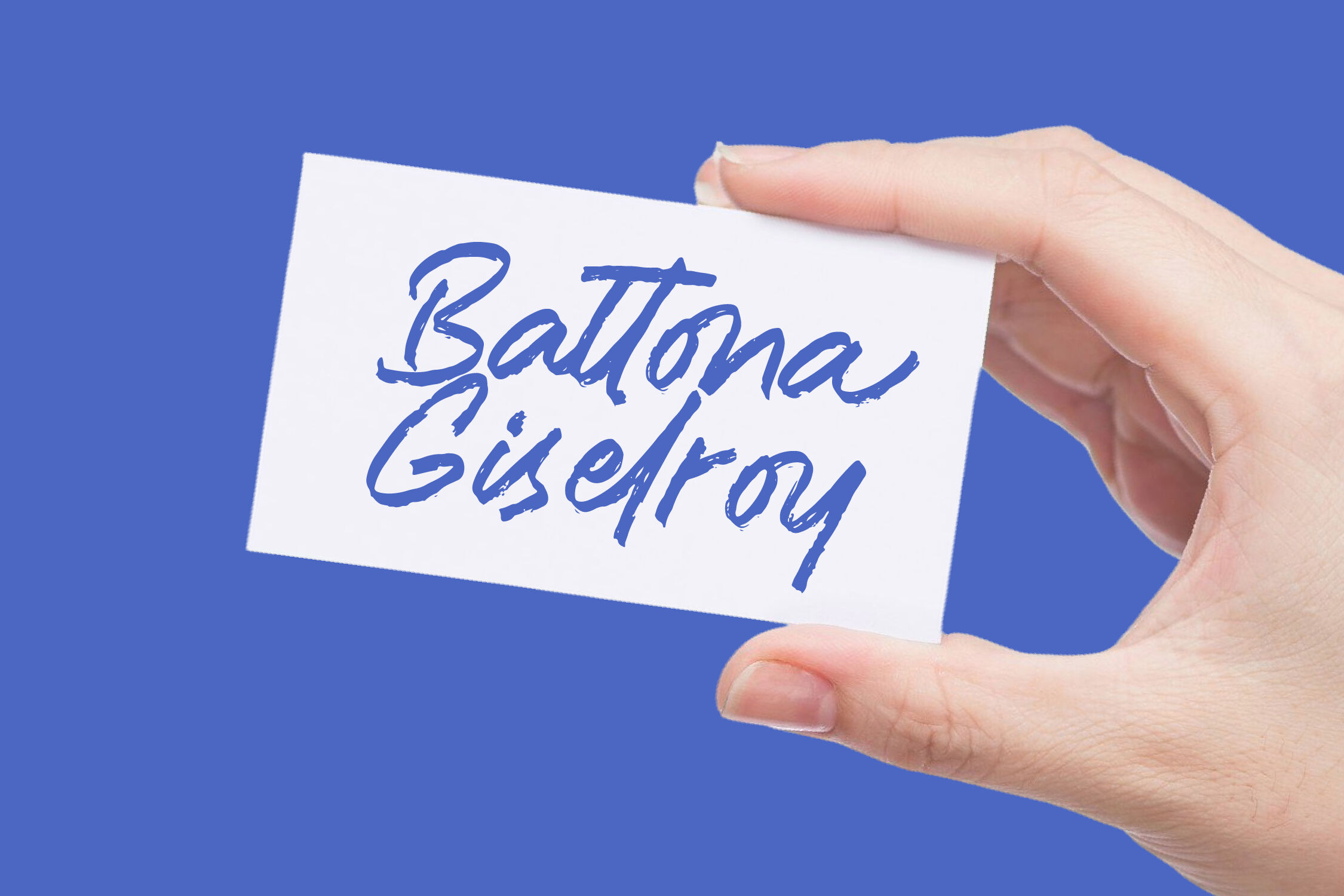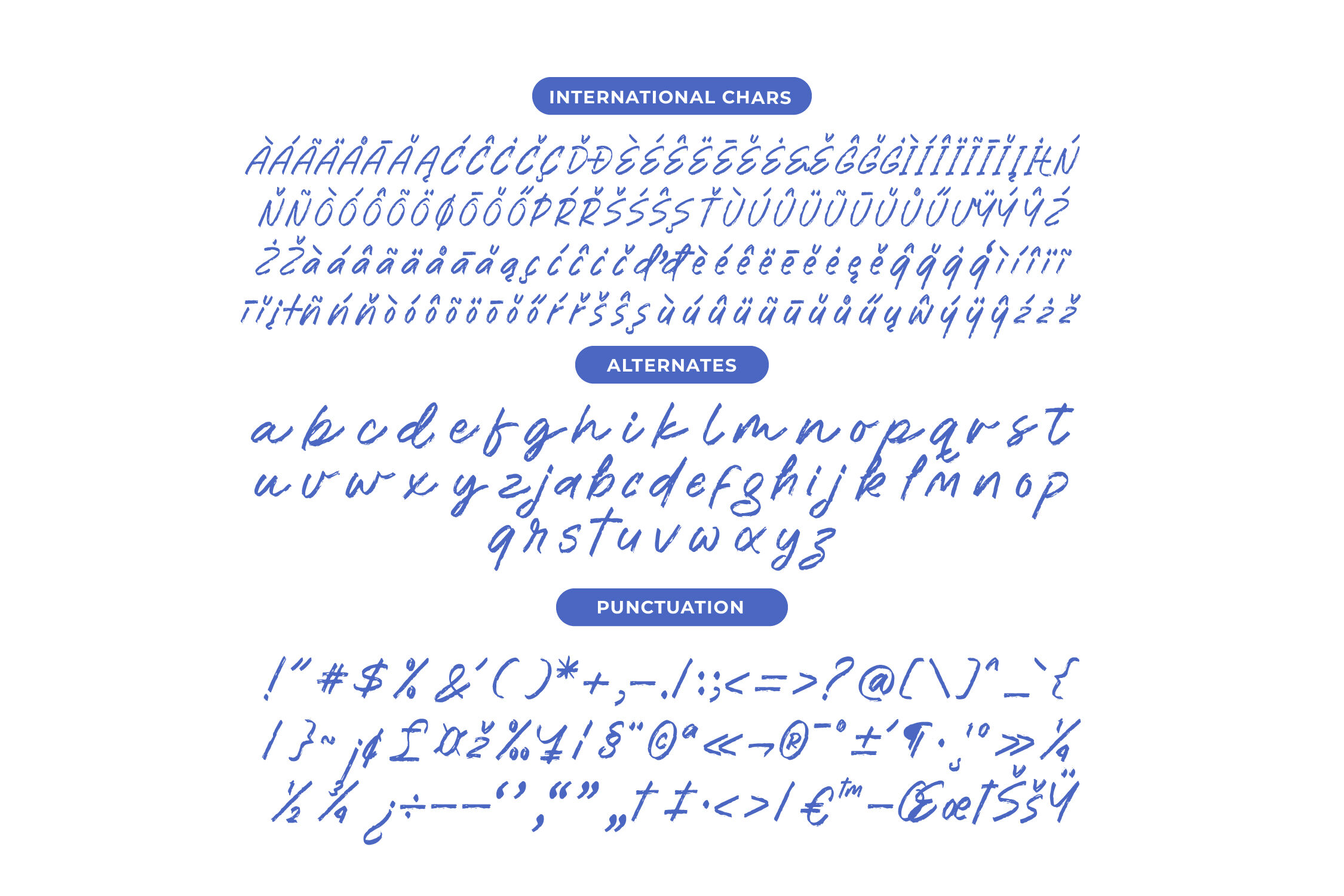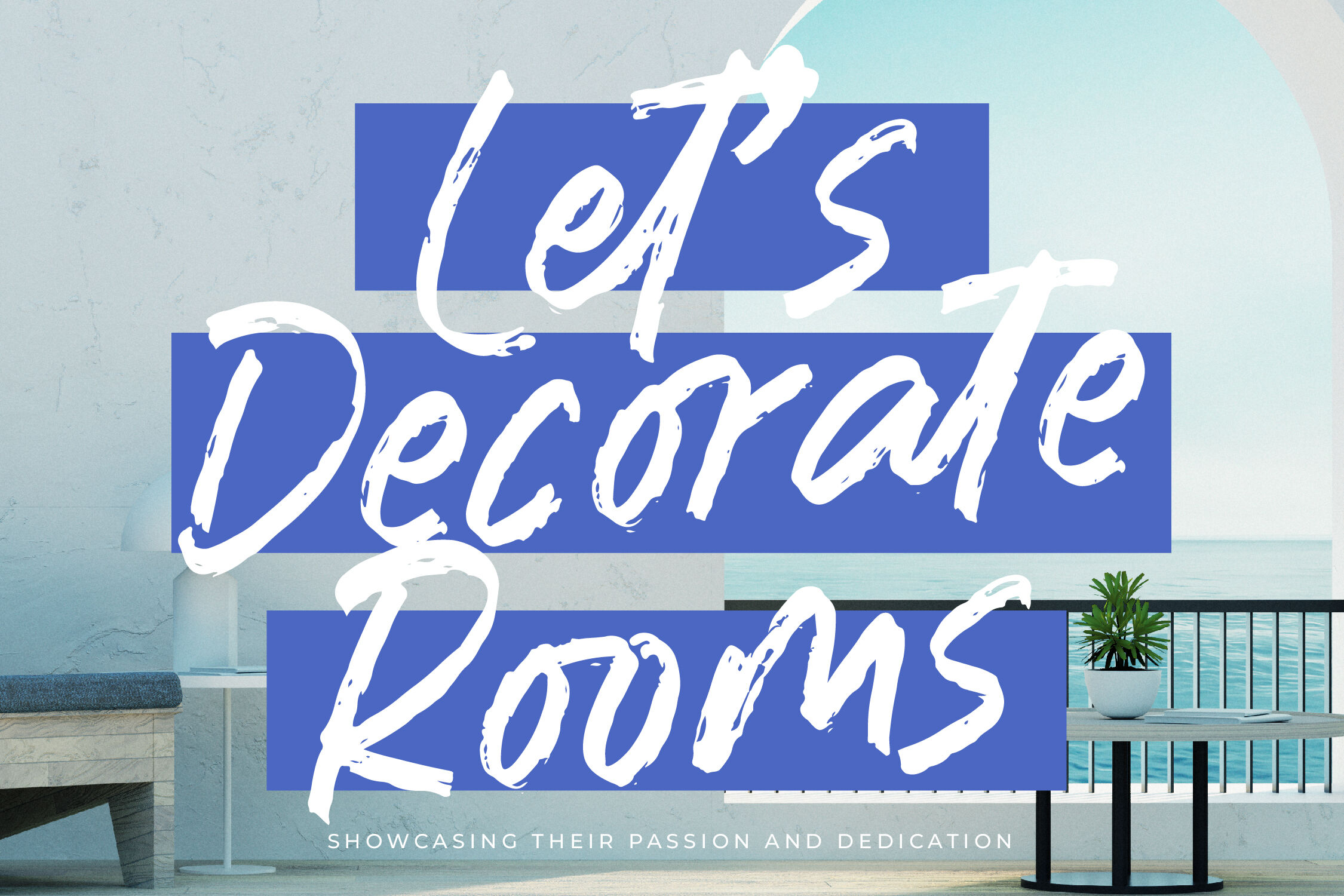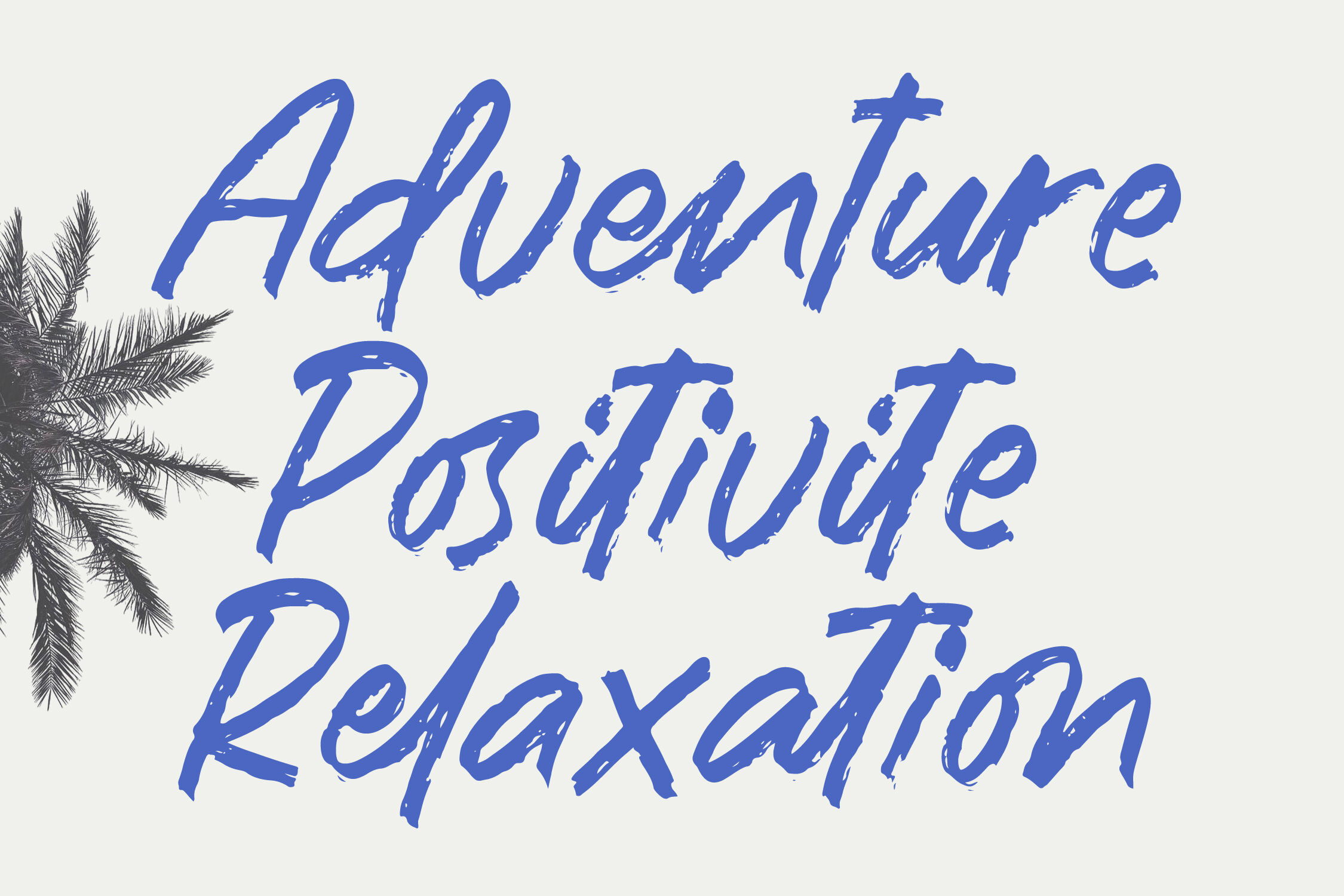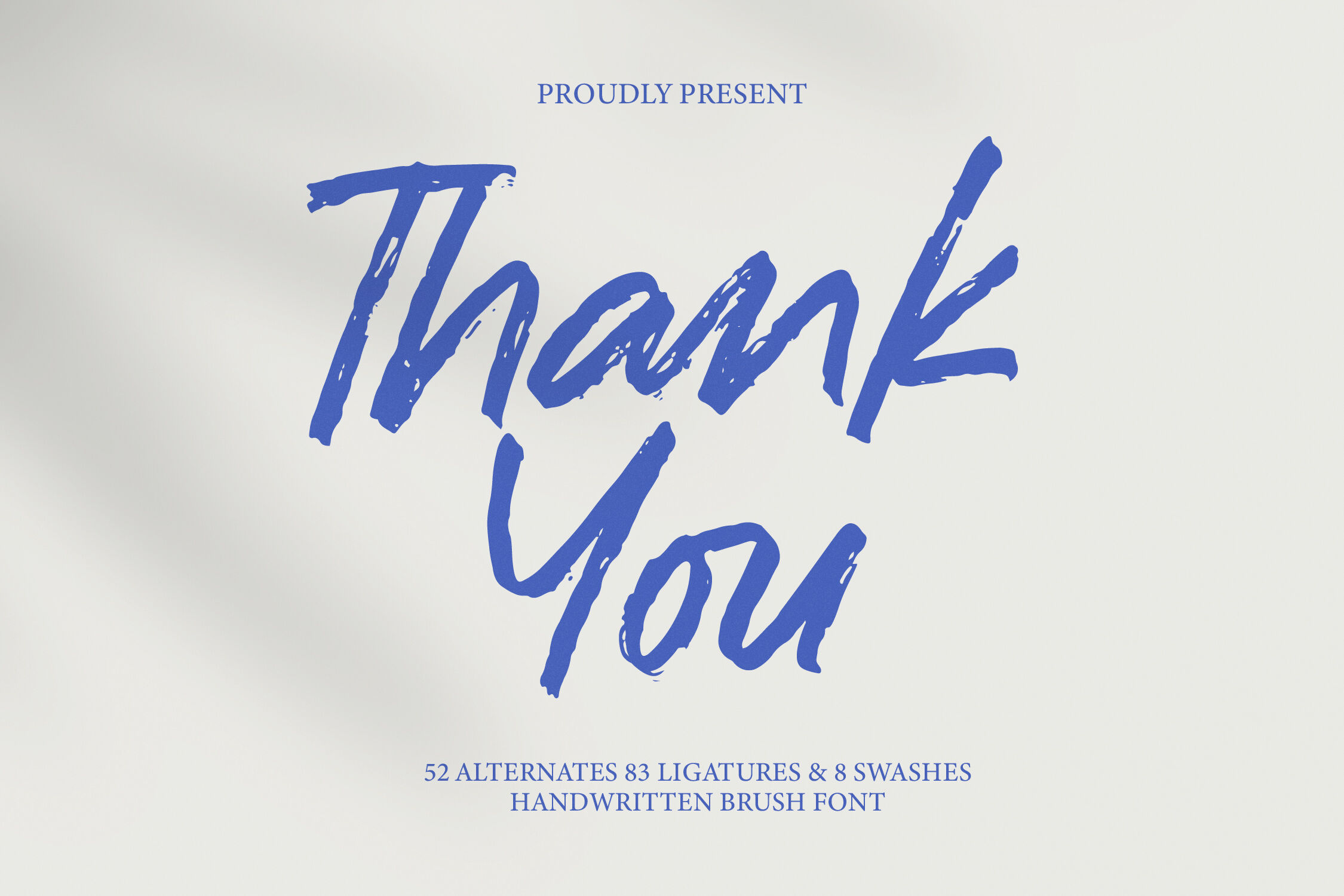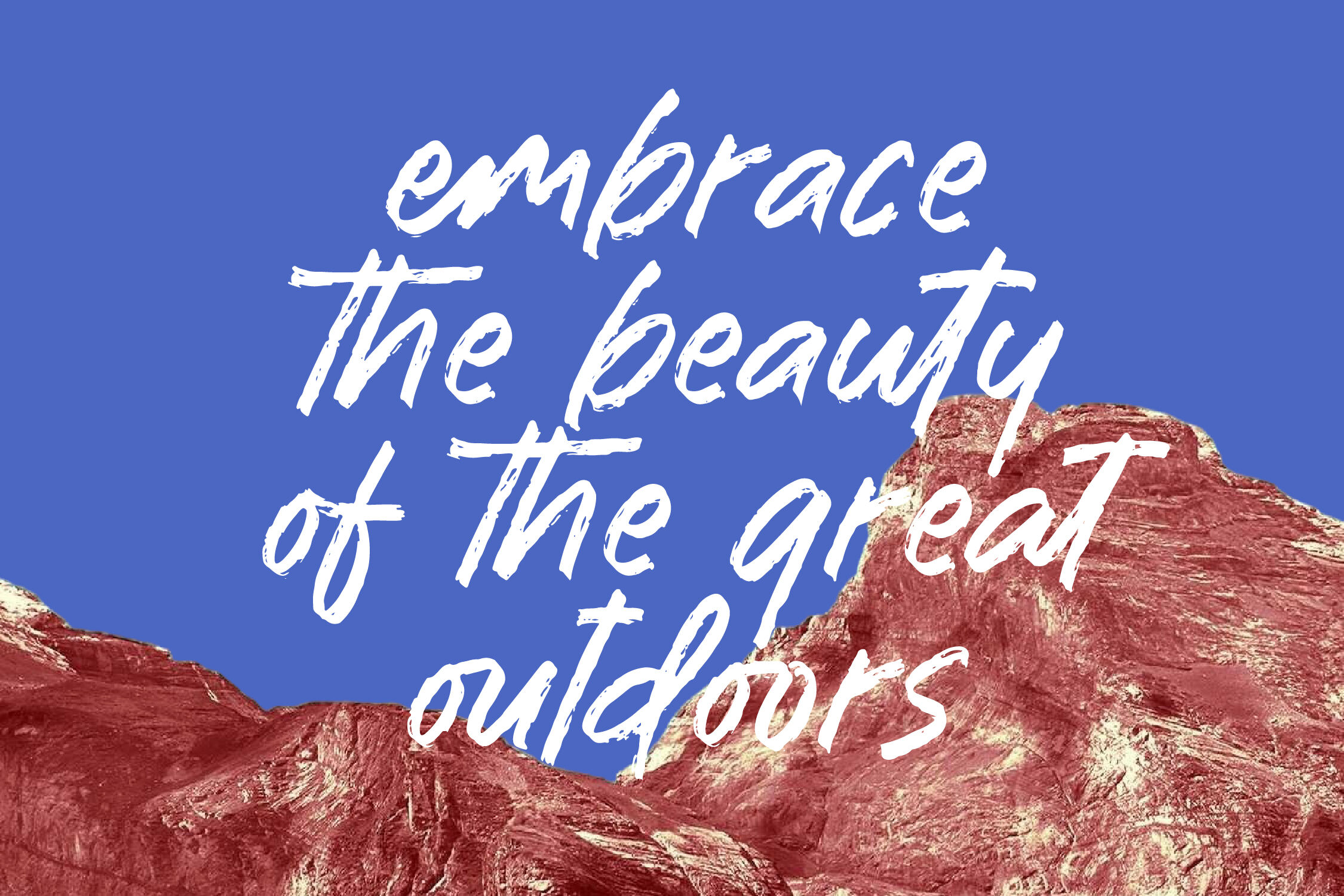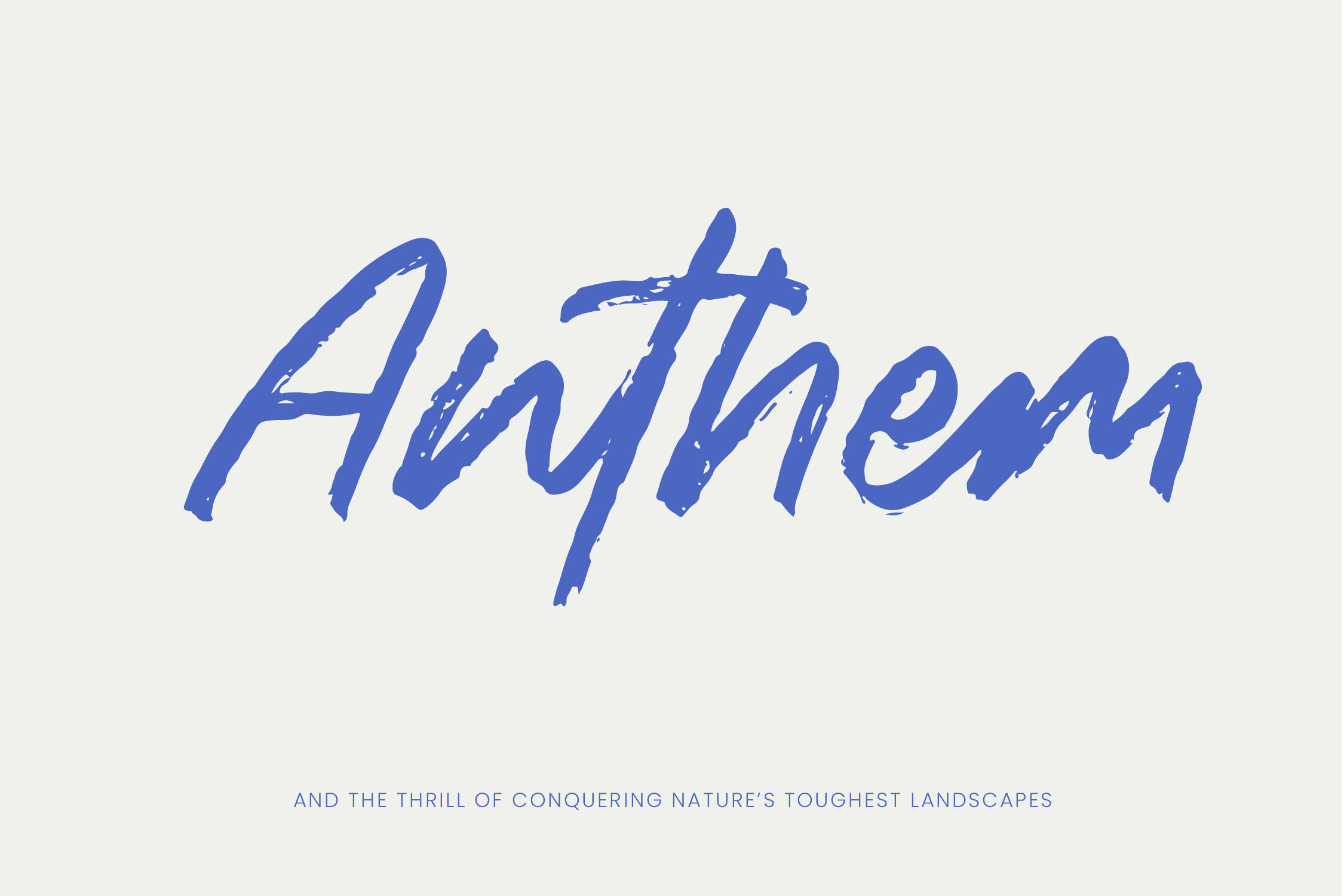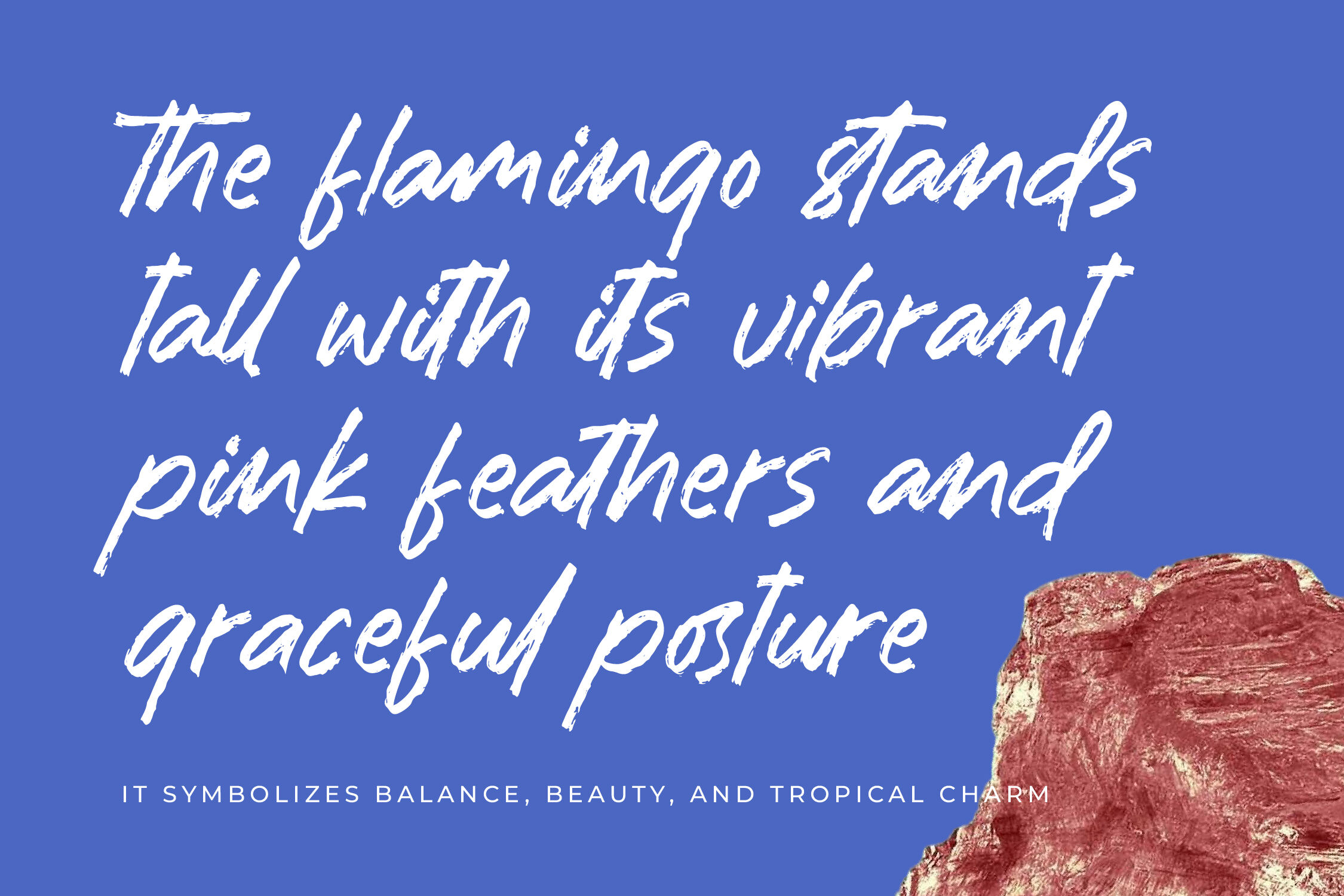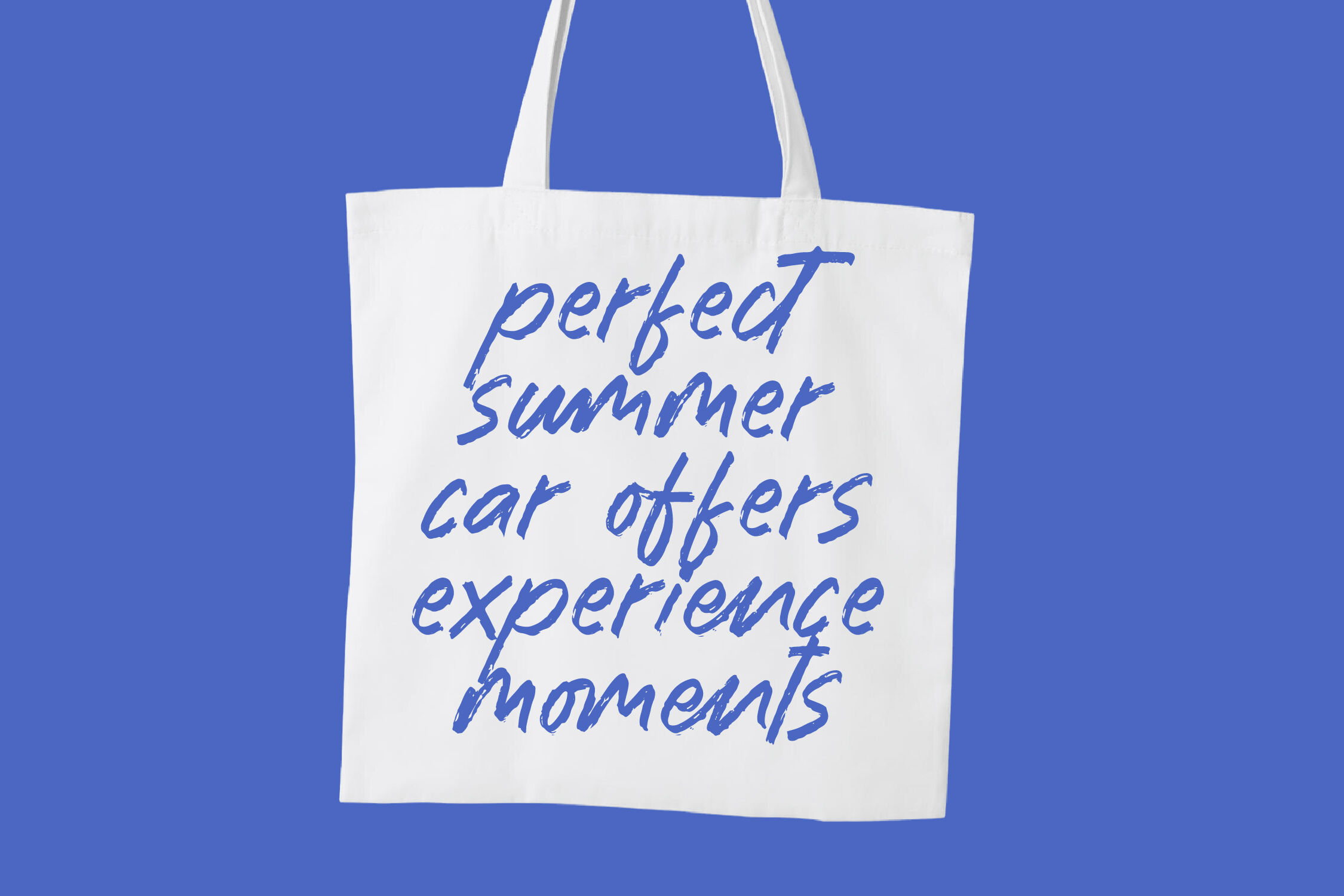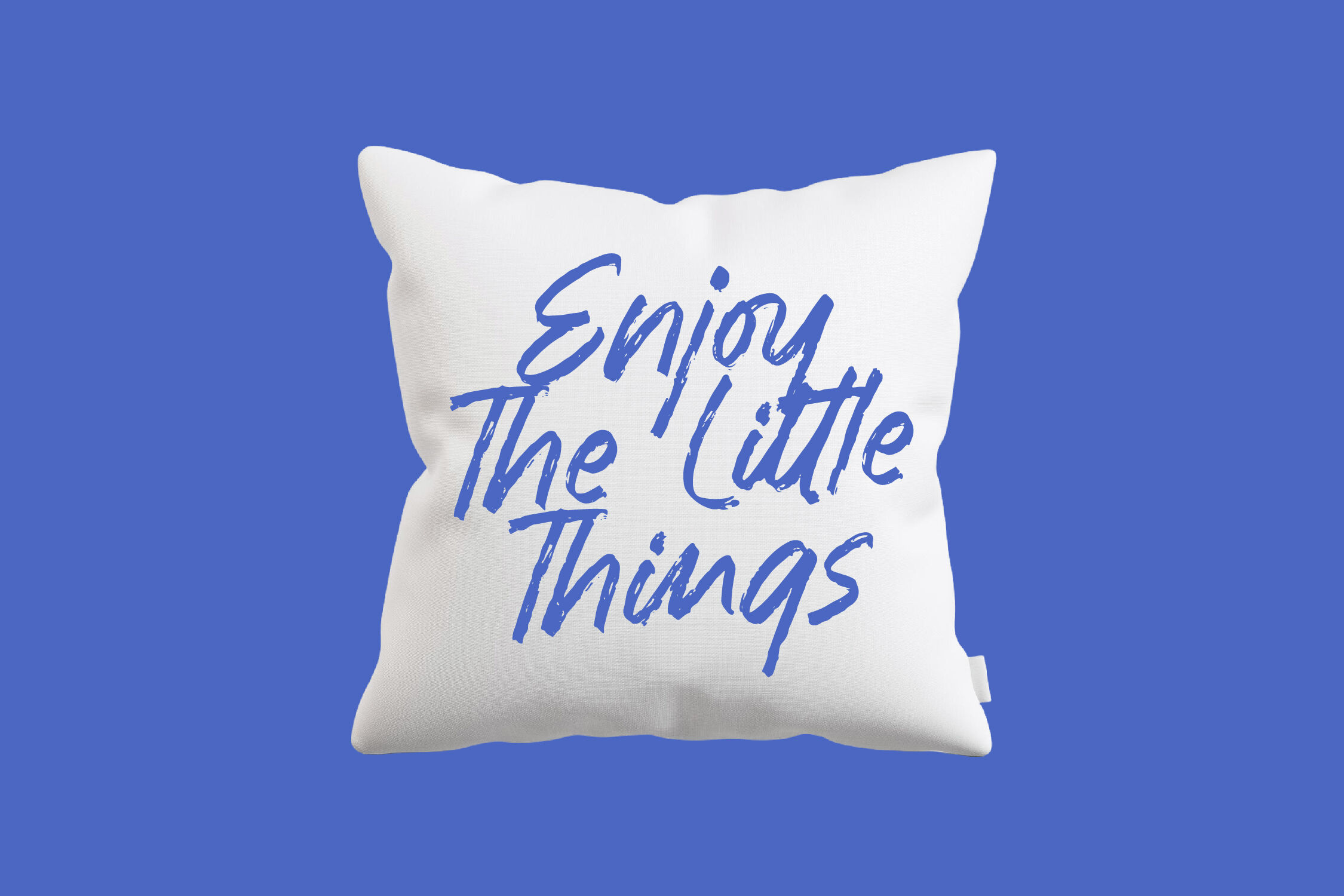
Rashing Skystand - Handwritten Brush Font
Rashing Skystand - Handwritten Brush Font , from Letterena, is a Luxury Script font, suitable for any projects such as: logos, branding projects, homeware designs, product packaging, mugs, quotes, posters, shopping bags, t-shirts, book covers, name card, invitation cards, greeting cards, label, photography, watermark, special events, and all your other luxury and beautiful projects that need a Luxury Script taste.